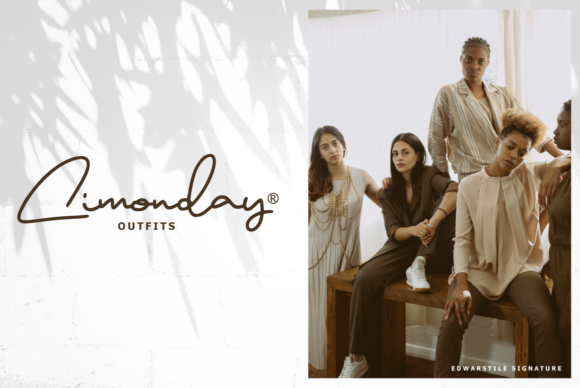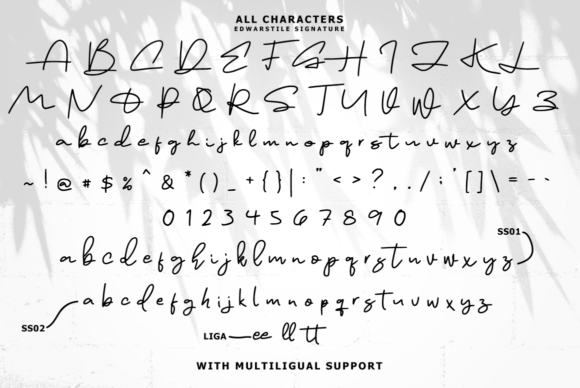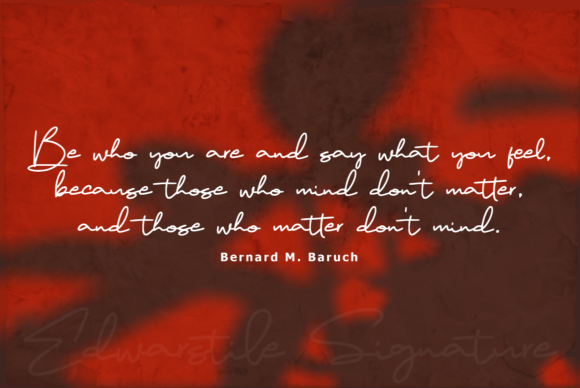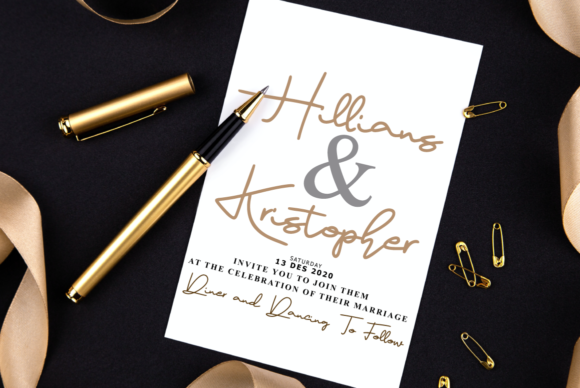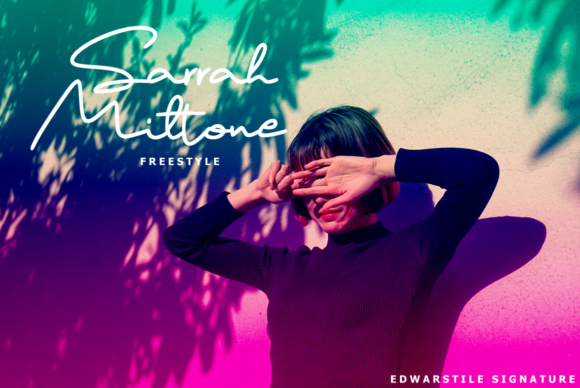
About Edwarstile Signature Font
Edwarstile Signature is a handwritten font with a calligraphy style, soft rhythm, and a dancing baseline! So beautiful on invitation like greeting cards, branding materials, business cards, quotes, posters, and more! This font is PUA encoded which means you can access the available glyphs and swashes with ease!